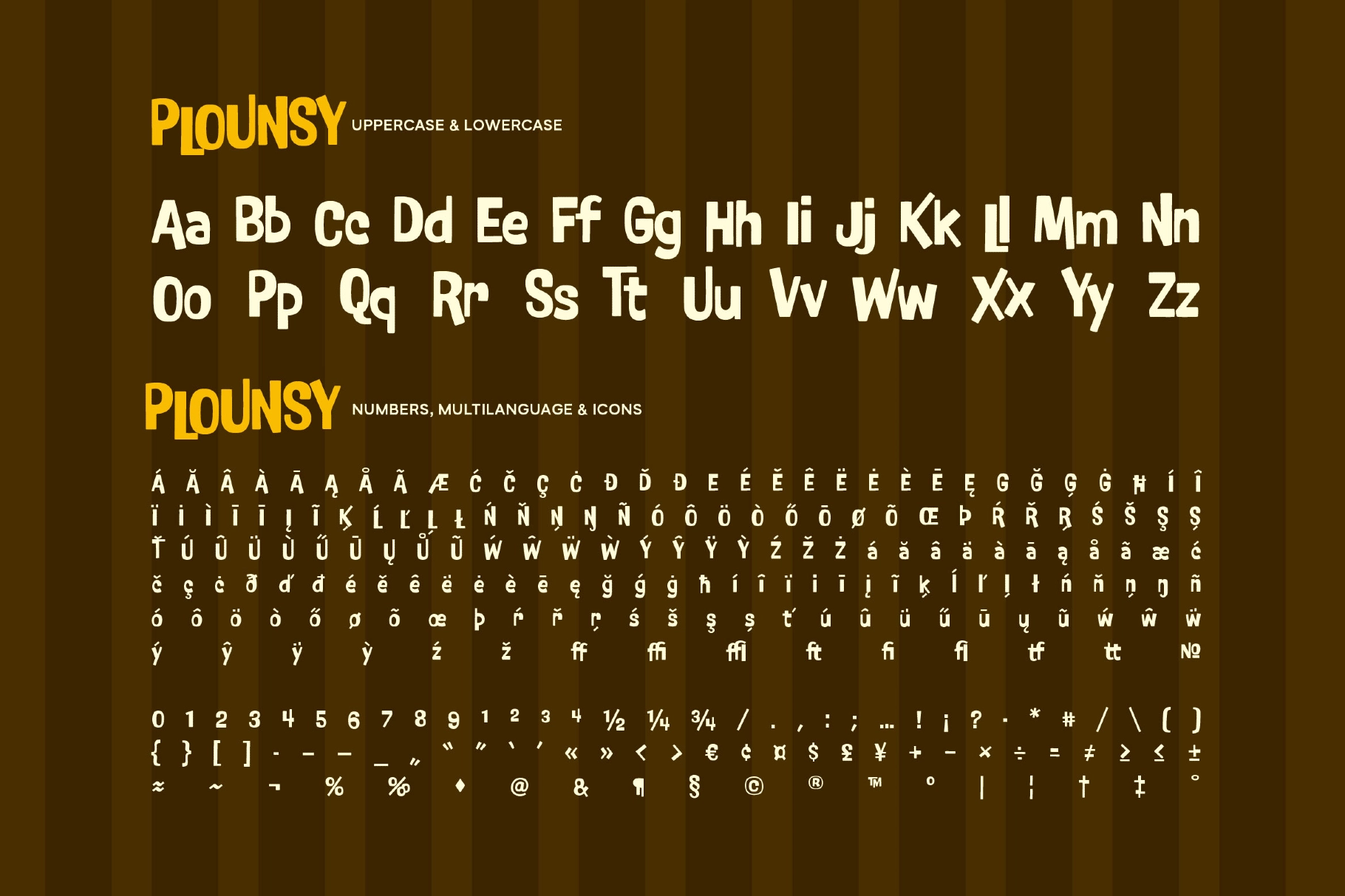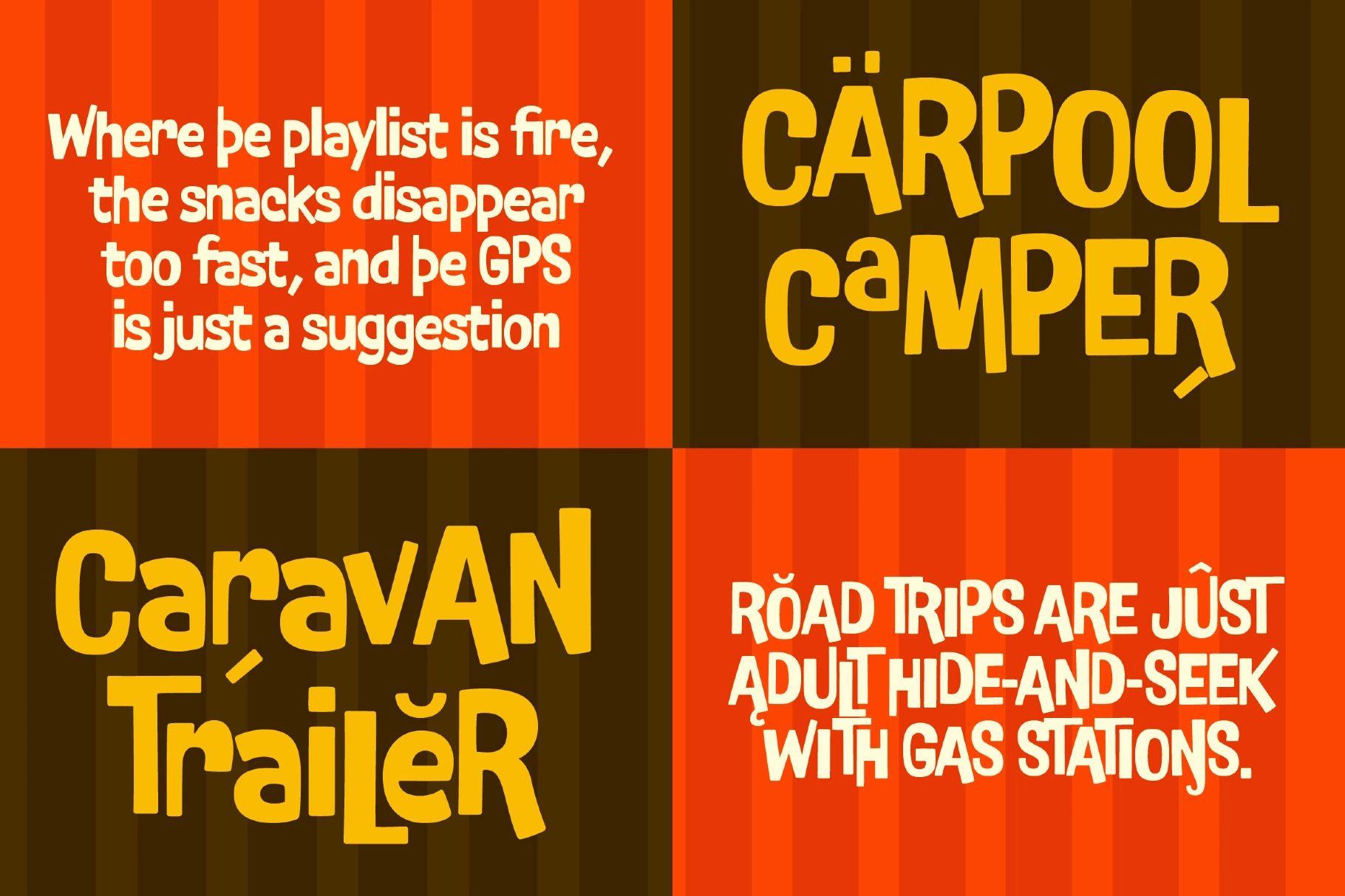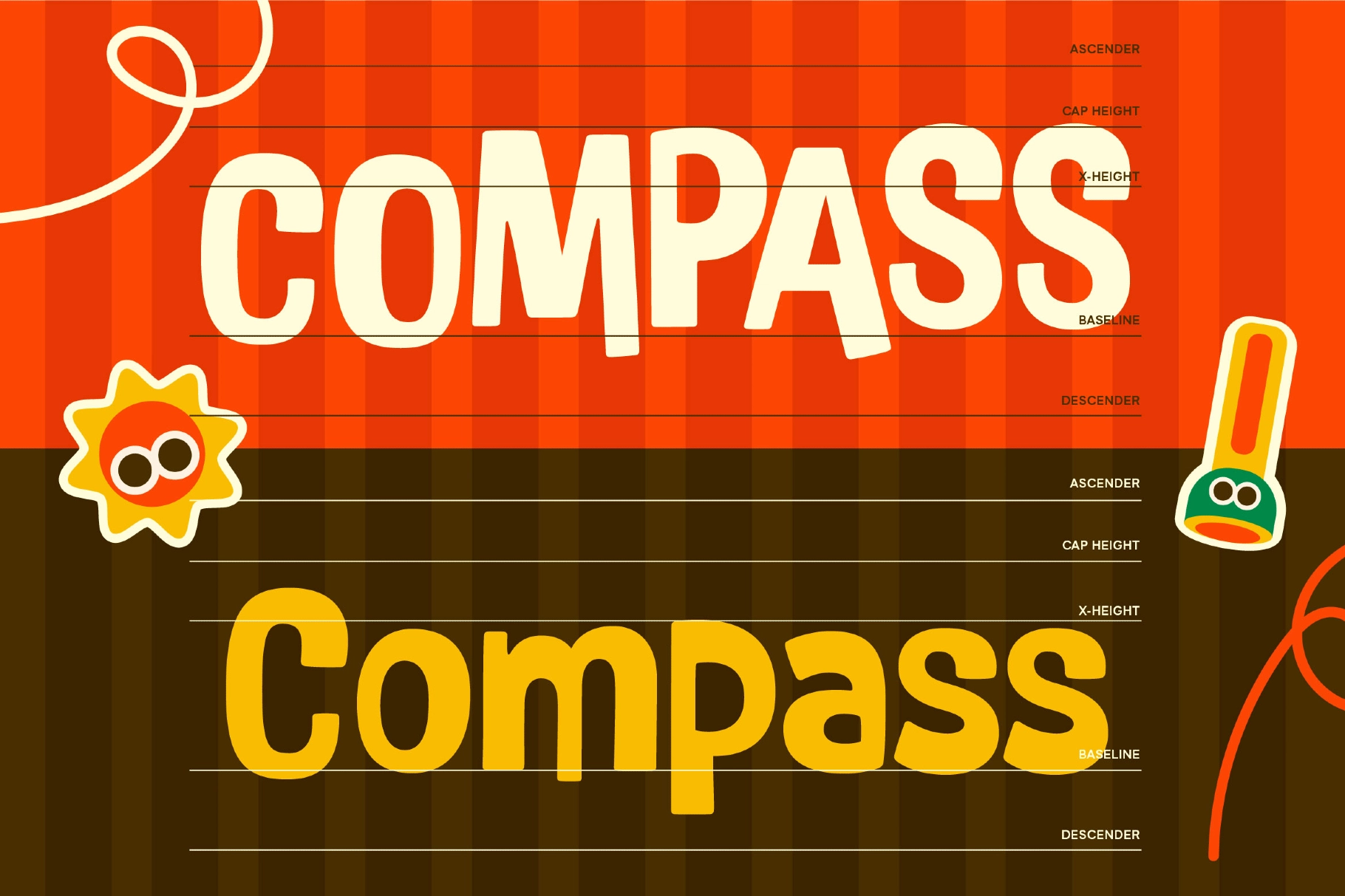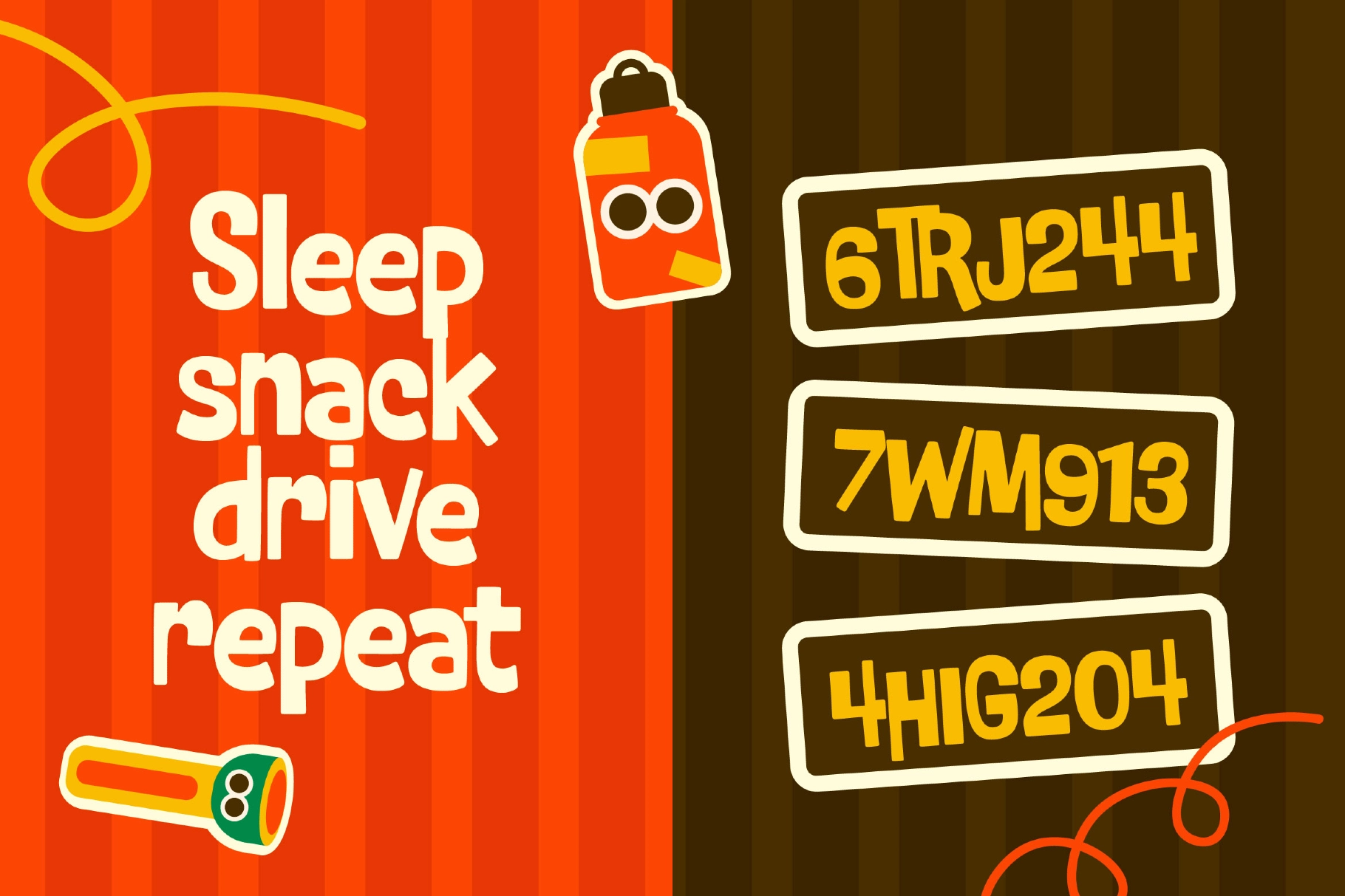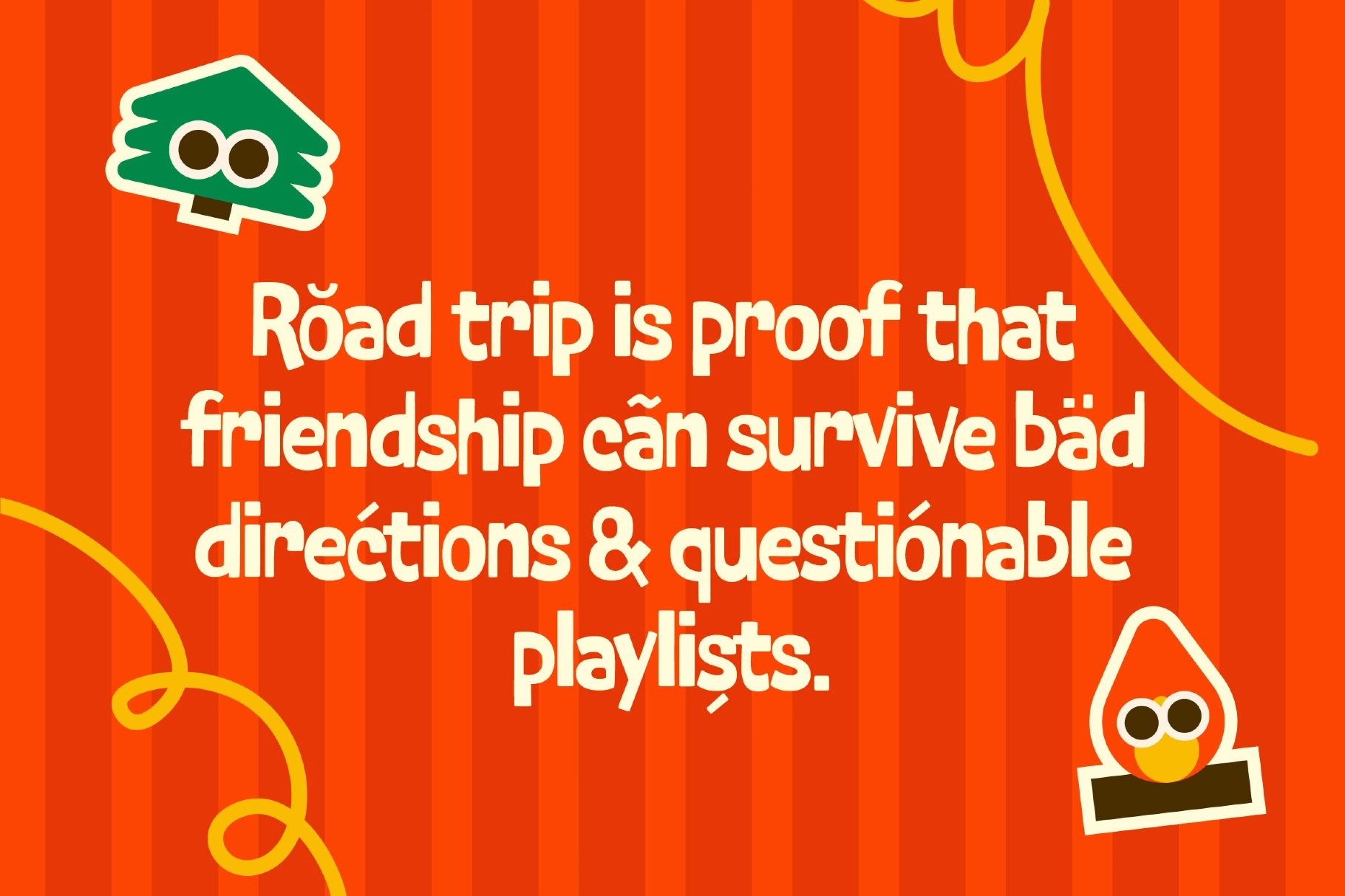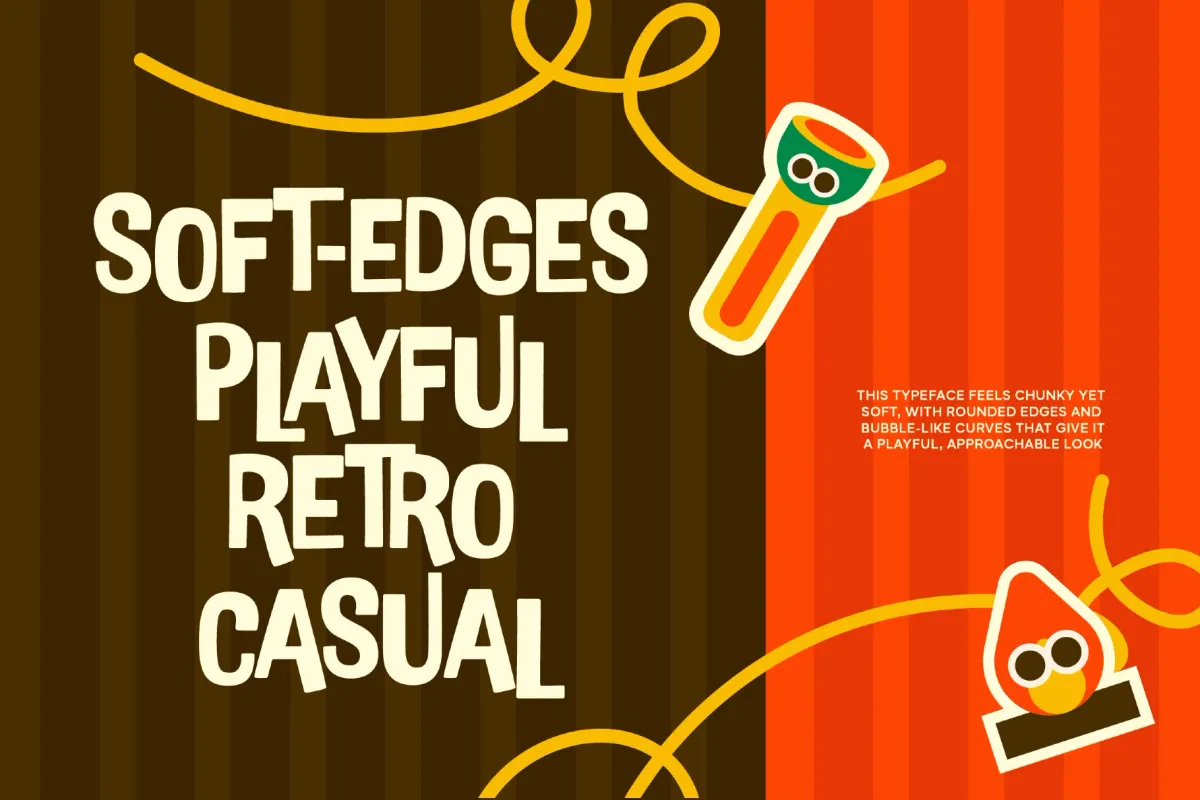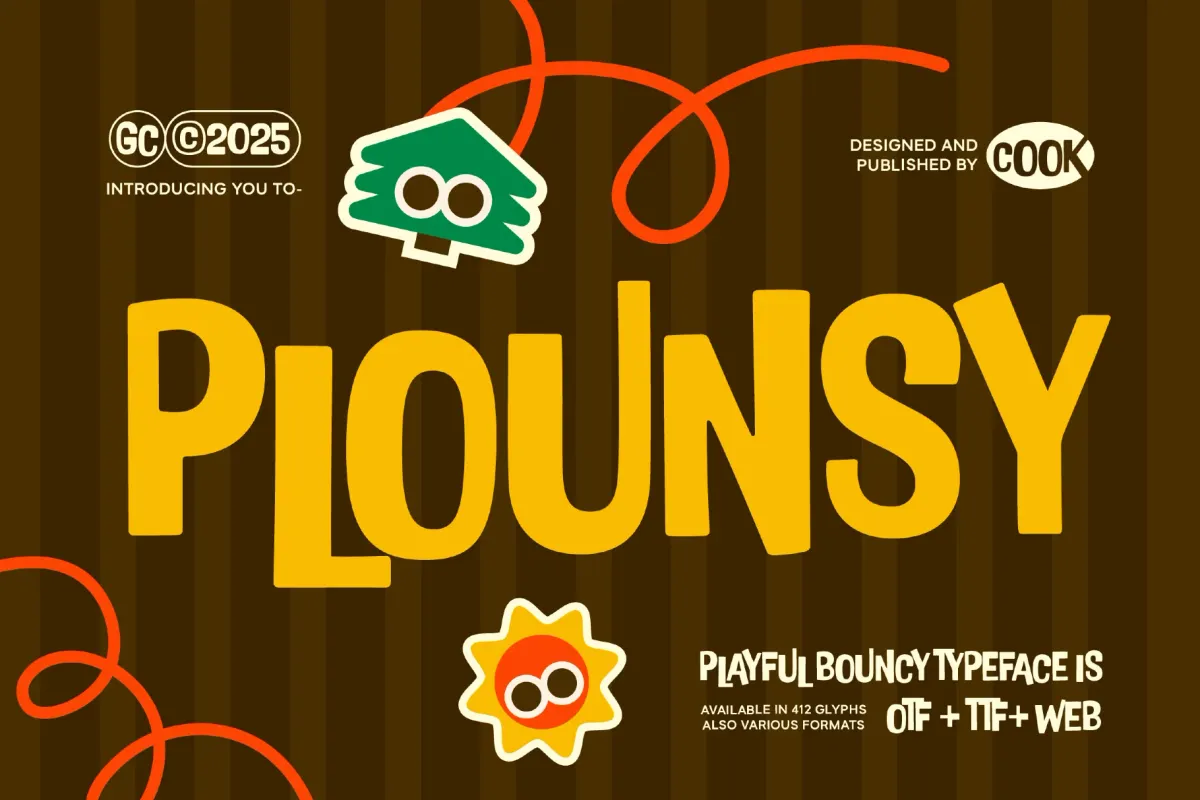
Plounsy - Playful Kids Font
Plounsy
Plounsy - Playful Kids Font is a bouncy, cheerful display typeface with asymmetrical letterforms and lively stroke variations that give it a fun, childlike personality. It’s a great pick for posters, headlines, branding, and other creative projects where you want friendly, playful energy and strong readability.